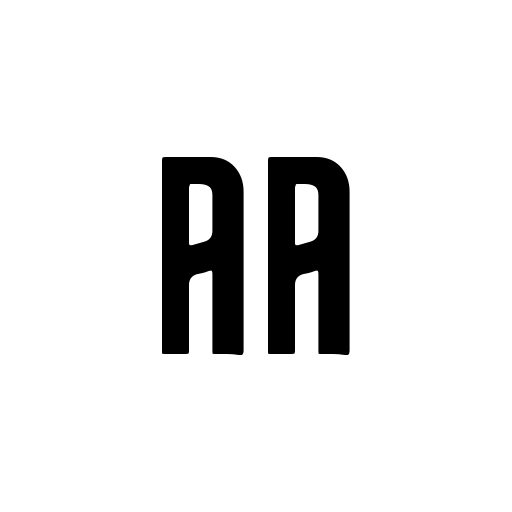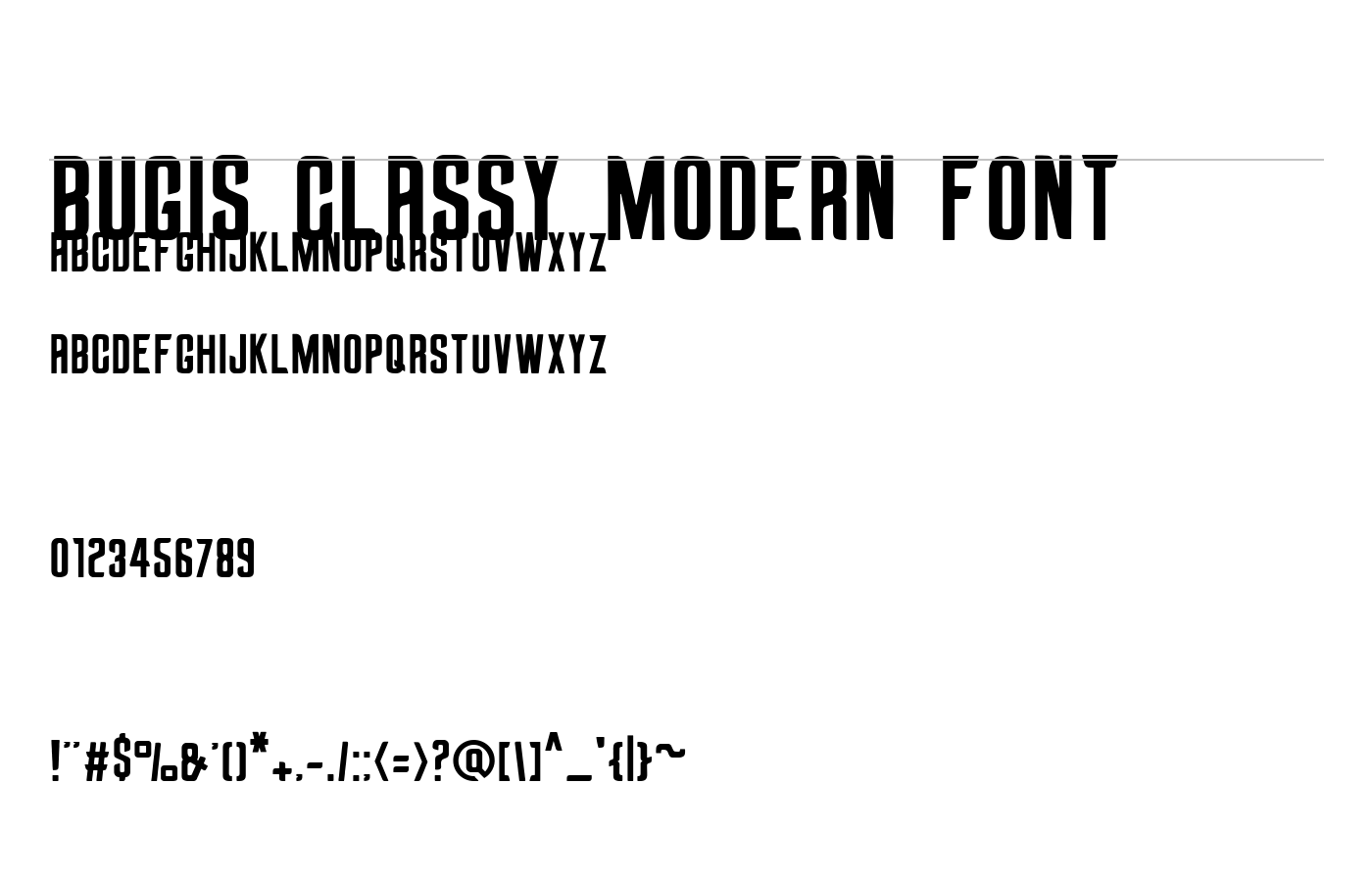
Bugis Classy Modern Font is a tall, narrow sans serif typeface with a bold, condensed style that commands attention. Its high contrast between thick and thin strokes, along with sharp, geometric edges, gives it a strong, modern feel perfect for striking headlines and branding. This font is ideal for use in logos, posters, and editorial design where a sophisticated yet impactful look is needed.
Bugis Classy Modern Font
About Bugis Classy Modern Font
| Font family | Bugis Classy Modern Font |
| Designer | Yesaya Amnestian |